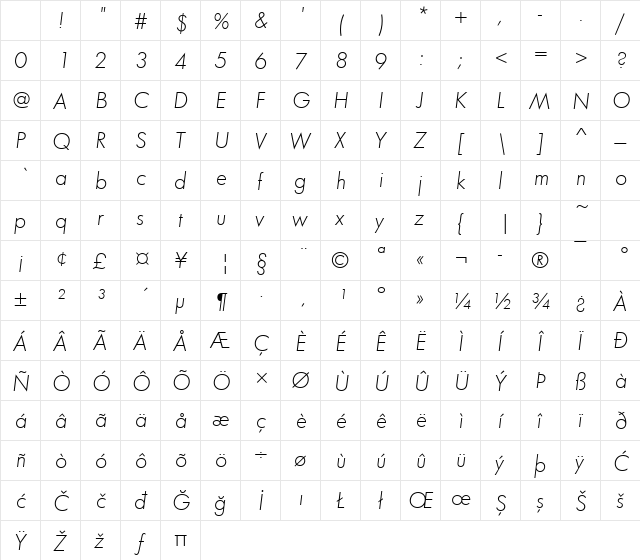
Complete FuturaTLig Oblique glyph index. Displaying only characters natively supported by FuturaTLig Oblique font.
FuturaTLig has a distinctly futuristic character, with geometric precision and clean angles that feel at home in technology, gaming, and sci-fi contexts. The slanted form adds forward momentum and visual energy.